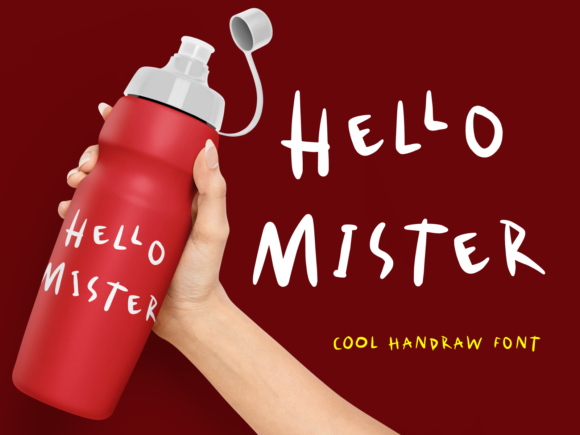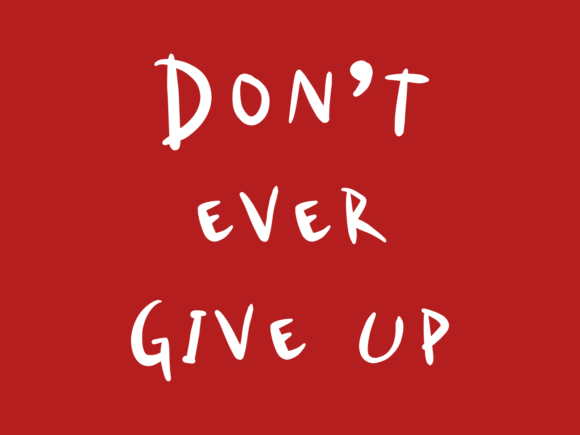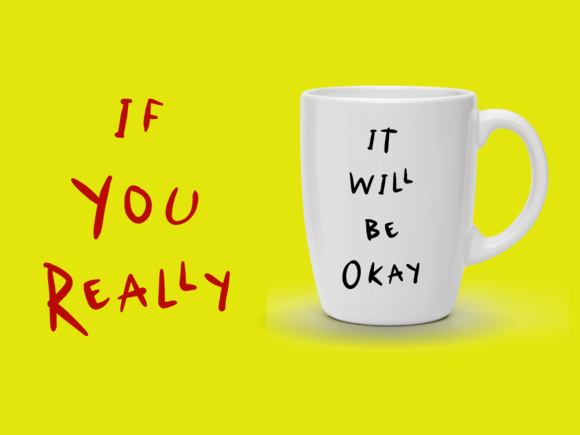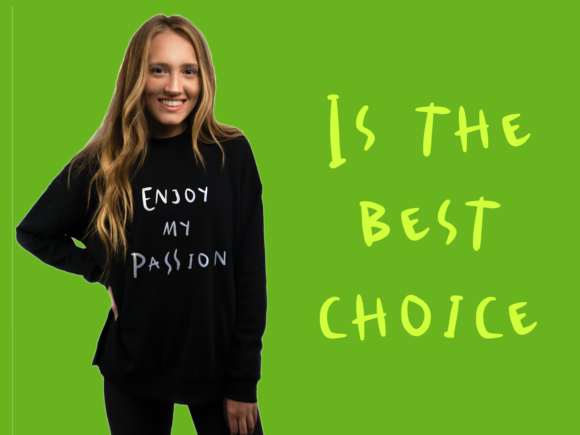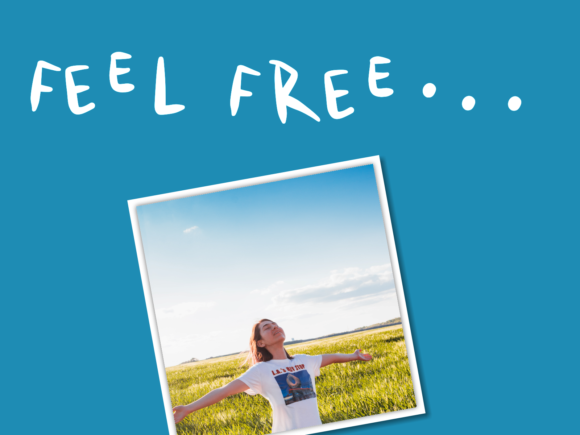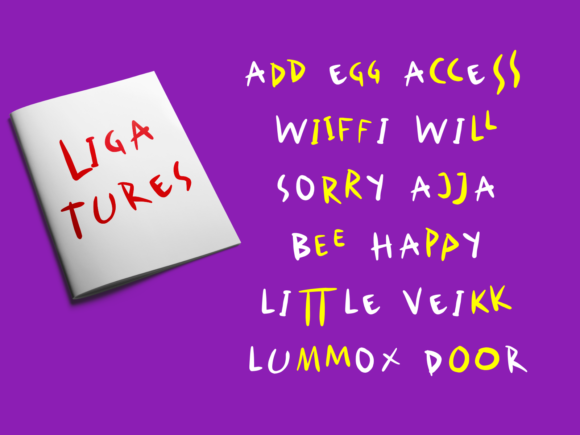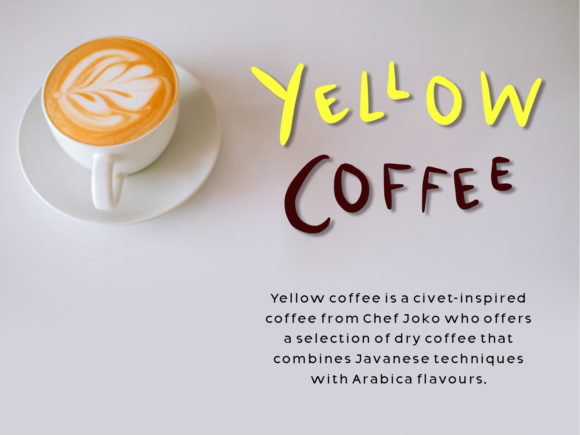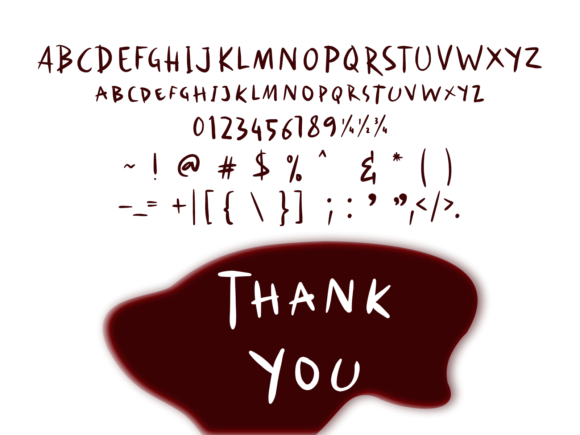
Hello Mister Font
About Hello Mister Font
Hello Mister is a cool and informal handwritten font. No matter the topic, this font will be an incredible asset to your fonts’ library, as it has the potential to elevate any creation.